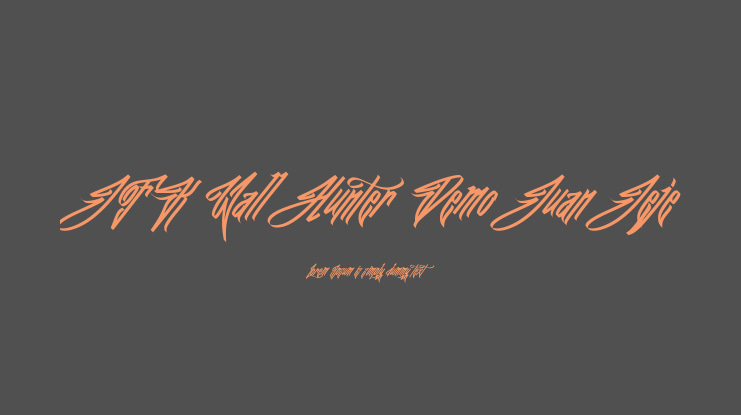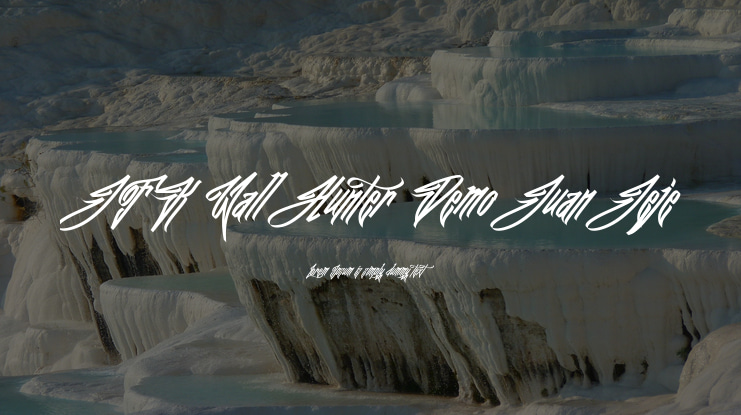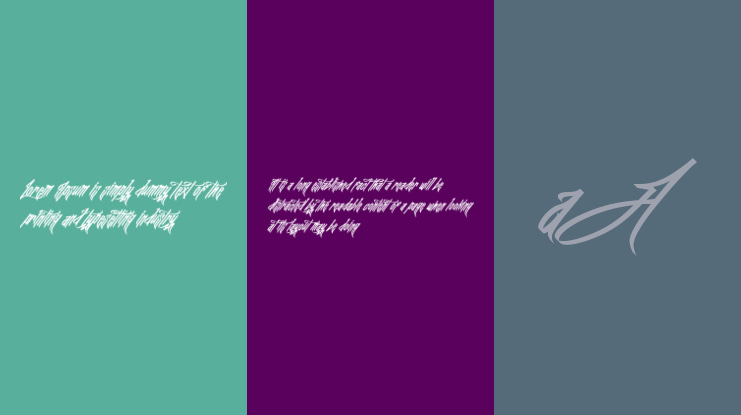
JFK Wall Hunter Demo Juan Jeje Font
Juan Jeje
Wall Hunter is an graffiti tag font, using digital marker in wild style of hip hop culture. dedicate and inspirated by street art artist over the world. Hope u enjoy this, like n comment please